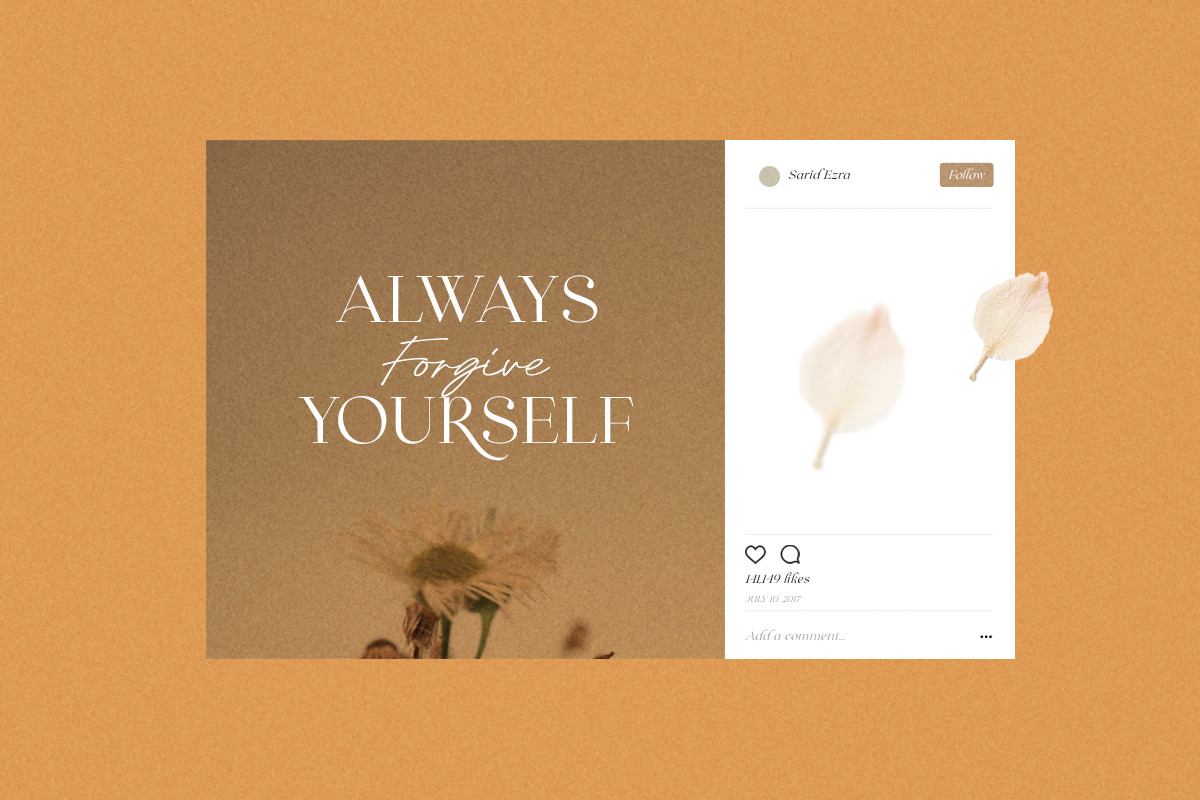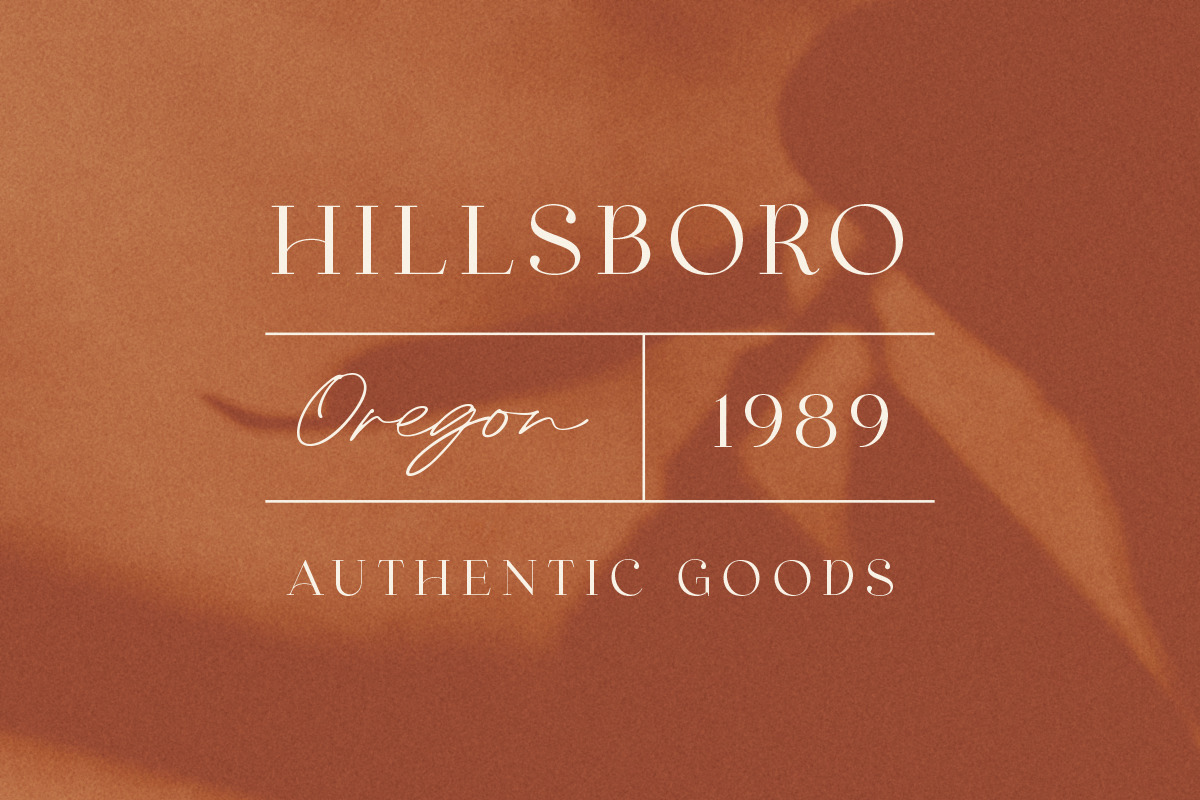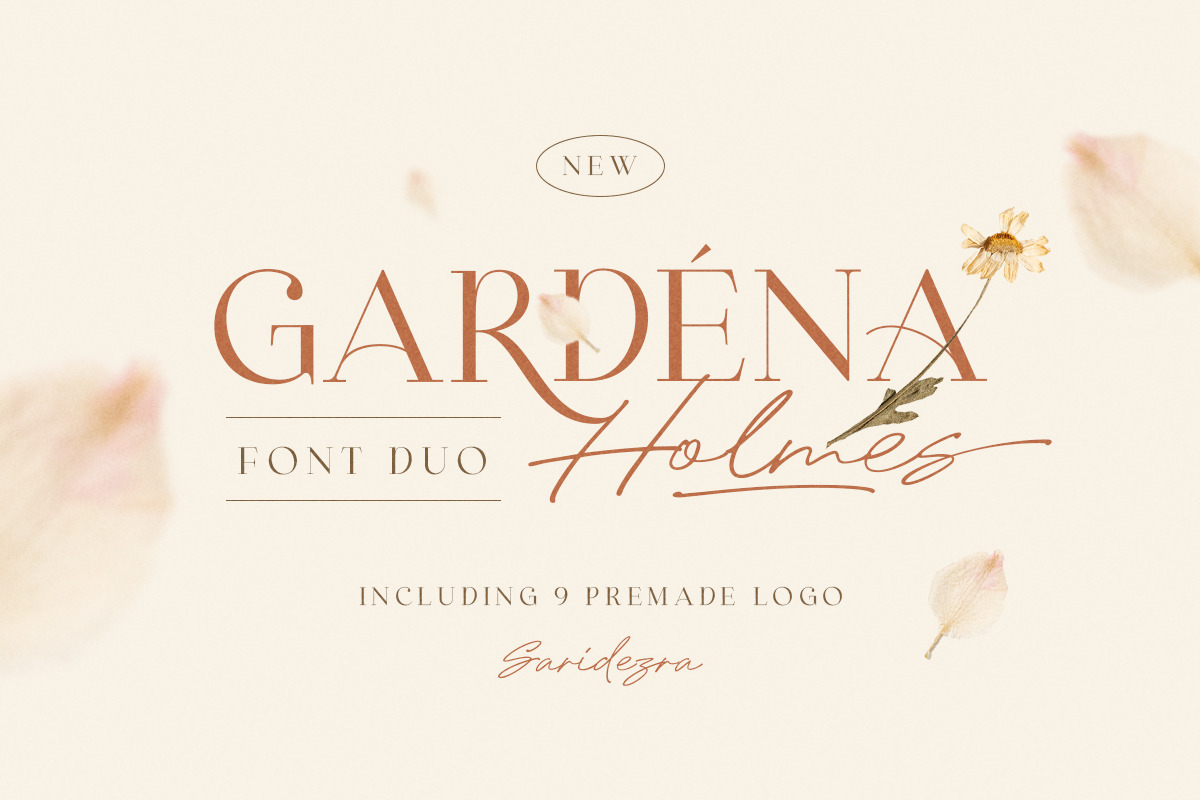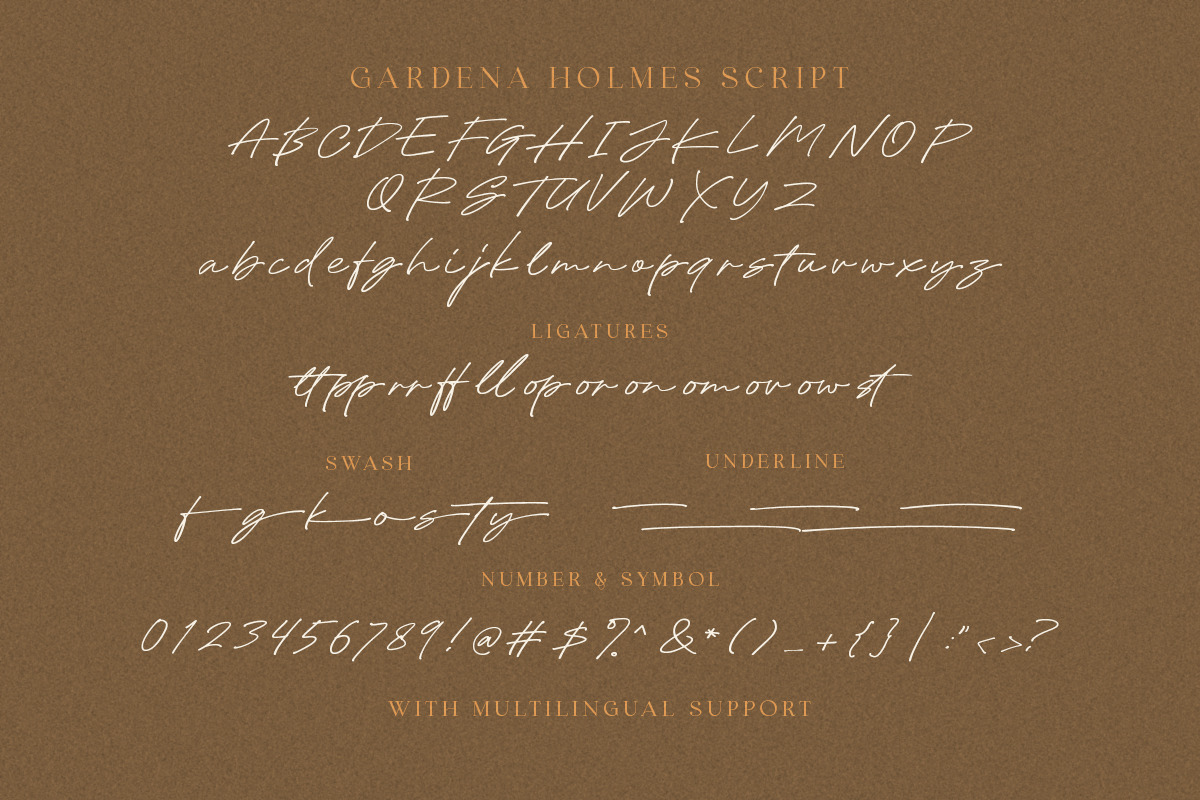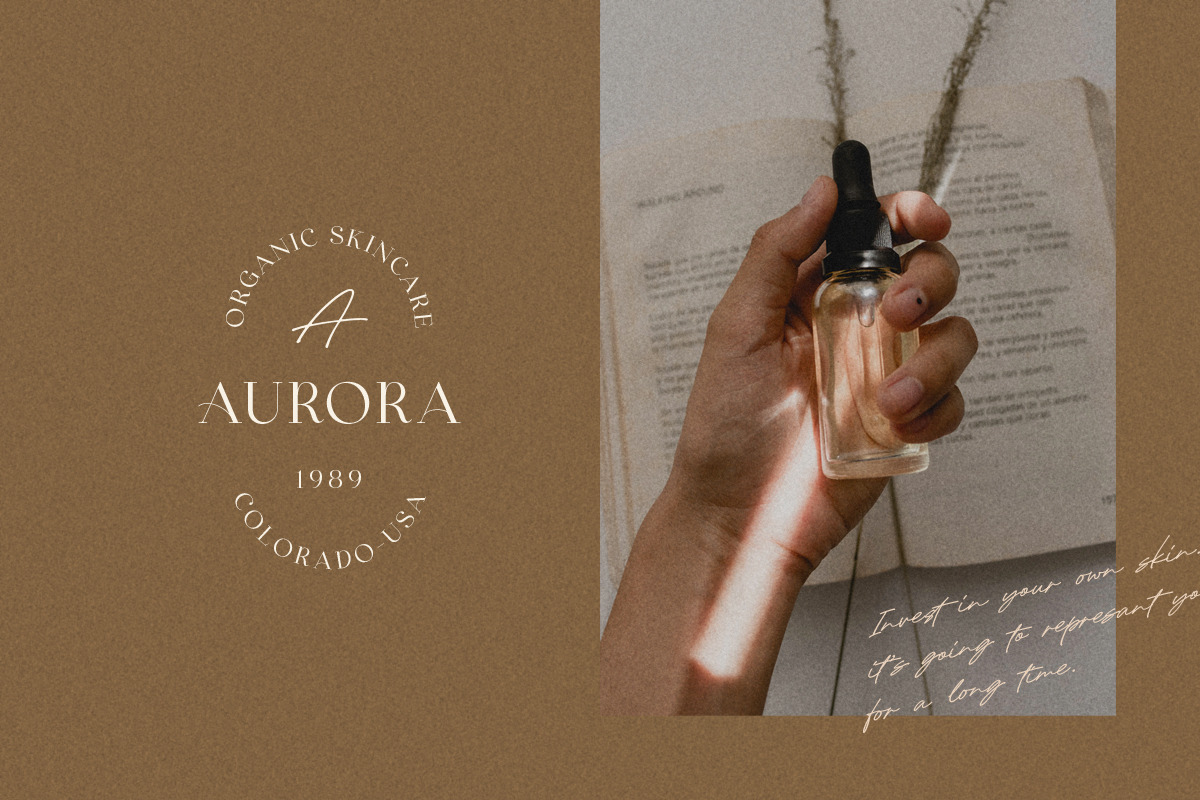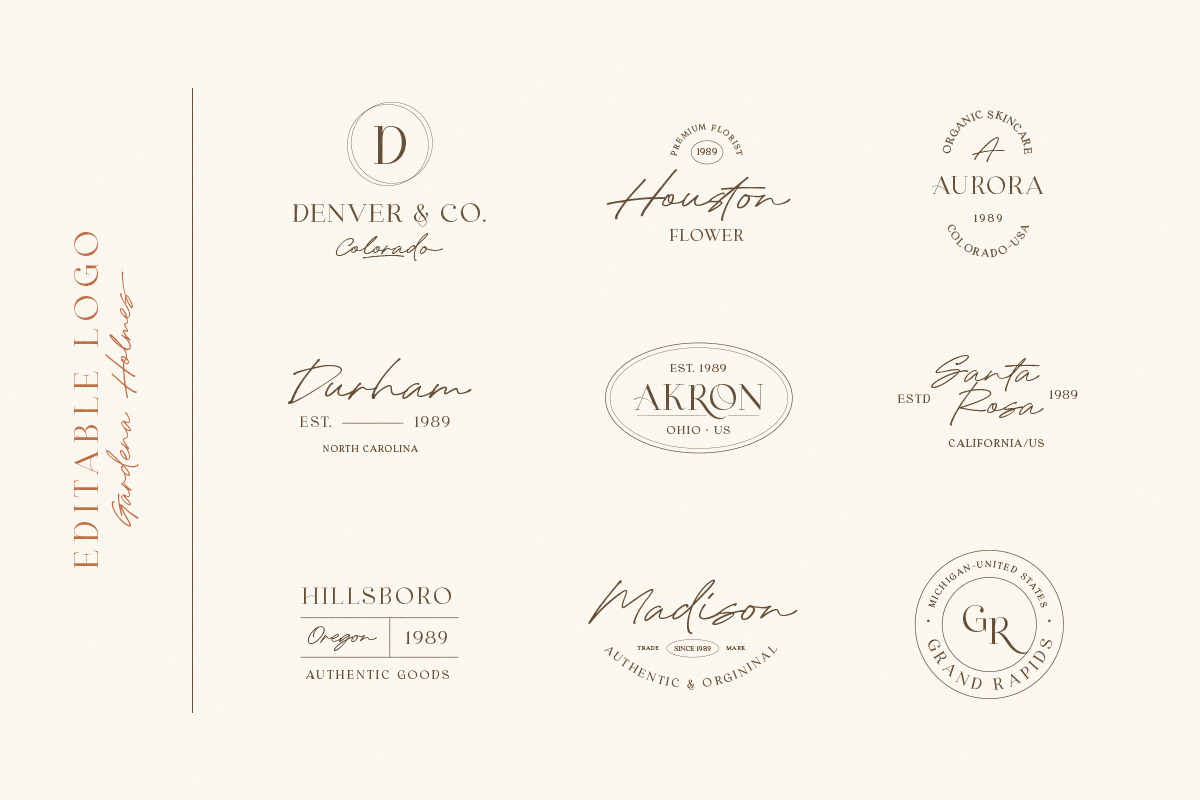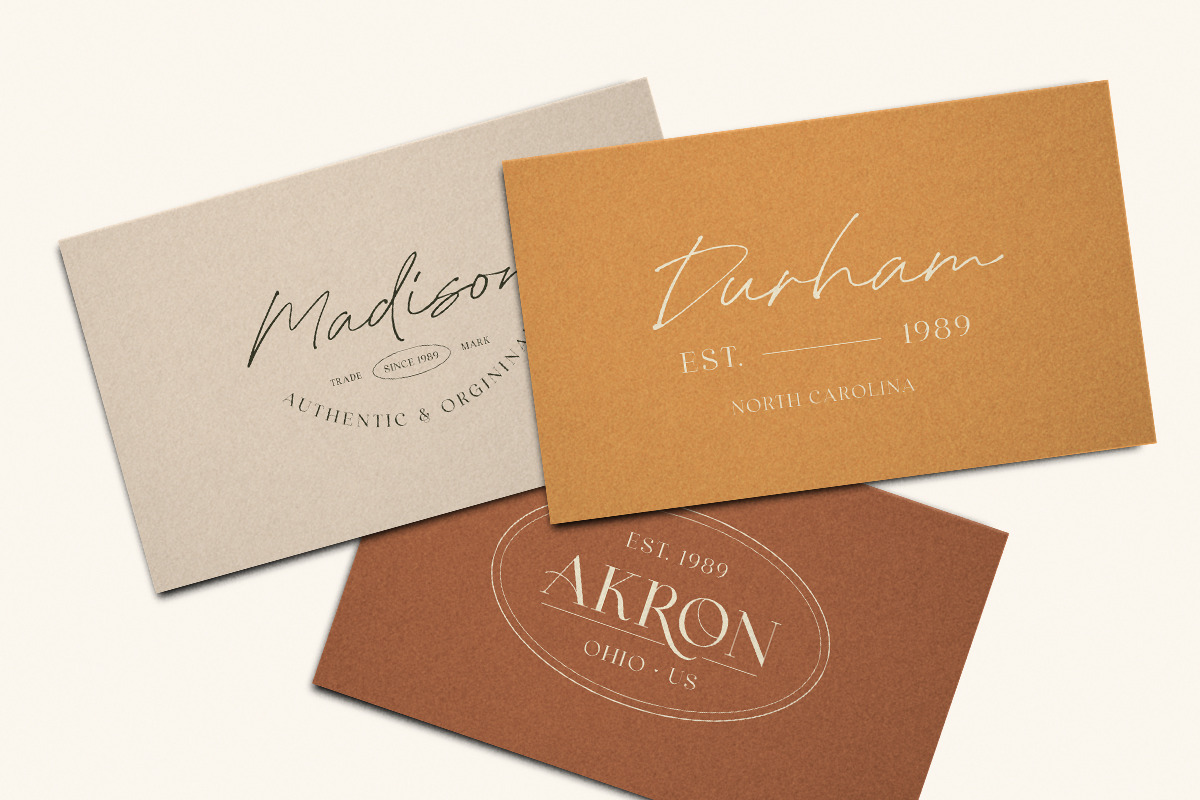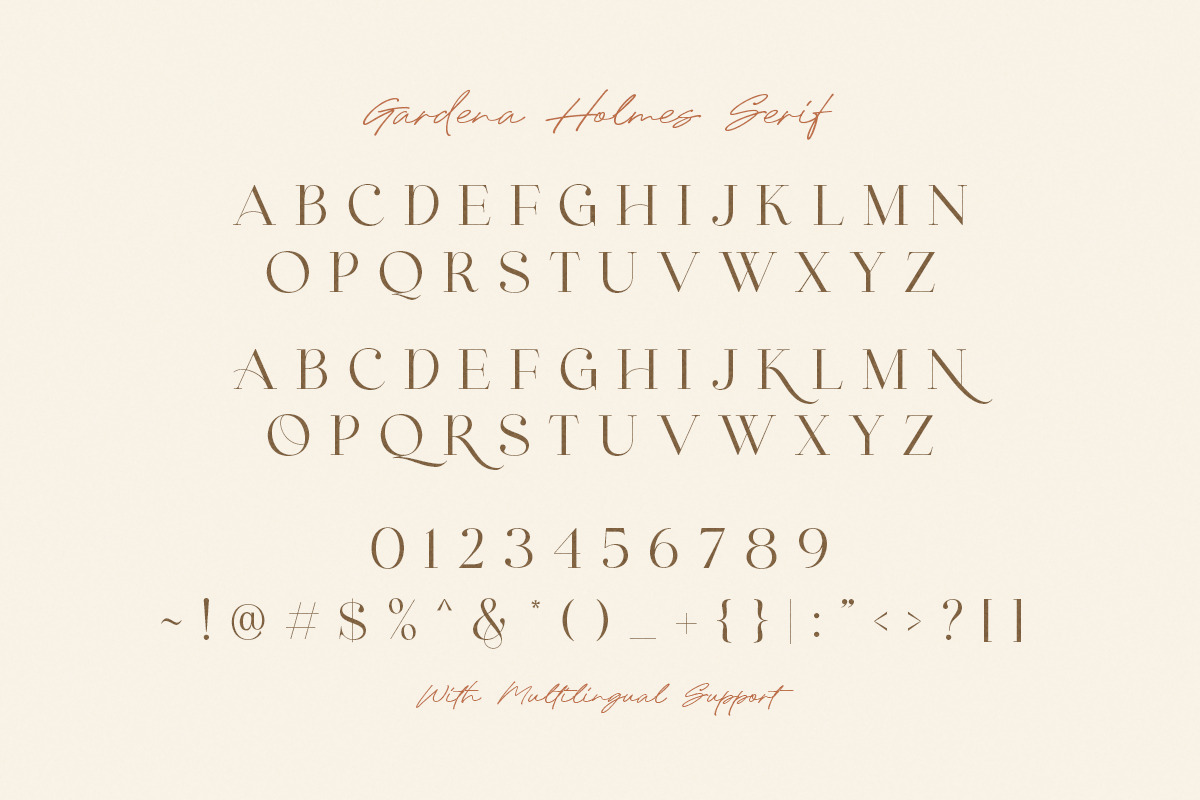
Gardena Holmes - Font Duo (+LOGOS)
Introducing, Gardena Holmes - Font Duo | Serif & Script with Bonus Editable Logo
Gardena Holmes is perfect combination between classic serif with signature script. Contain two fonts, the delicate modern serif and a free hand writing script. This font duo also support multilingual, number and symbol, end swash and many ligatures. Also this font already PUA Encoded. Including exclusive bonus, 6 beautiful premade logo which will make it easier for you to make a logo!